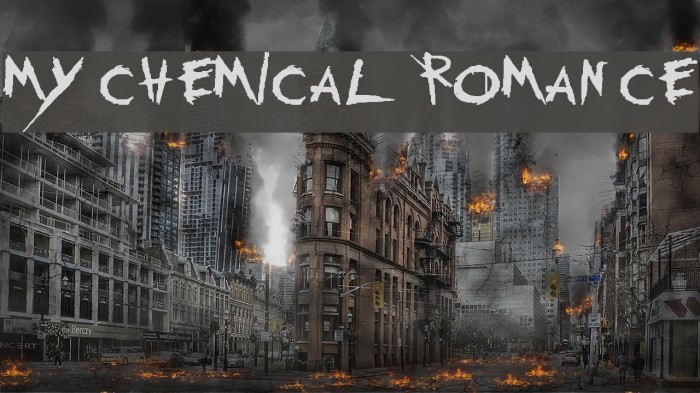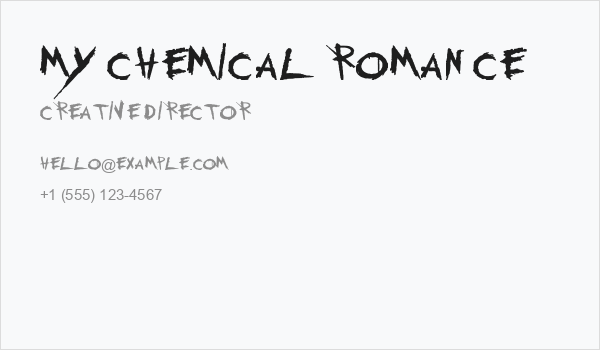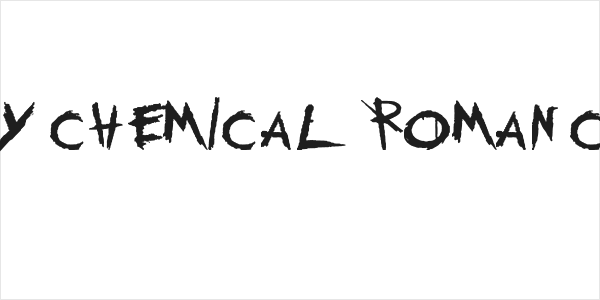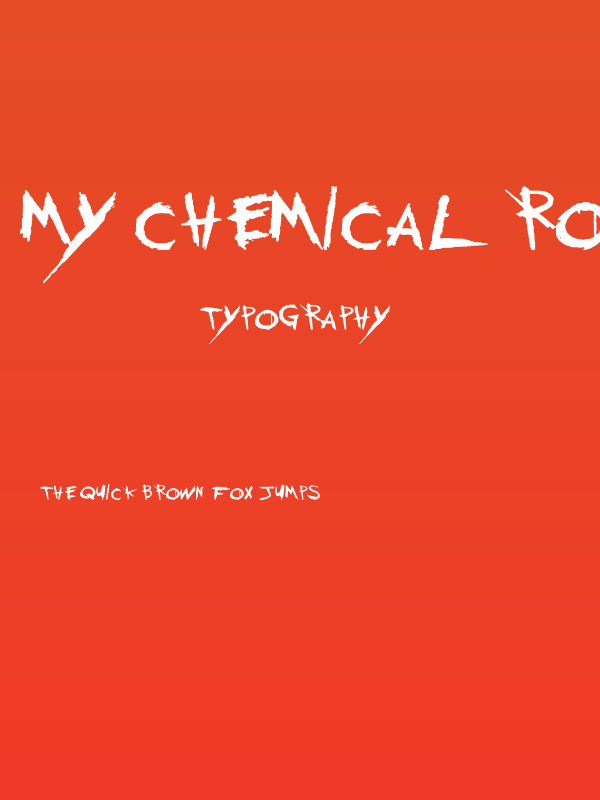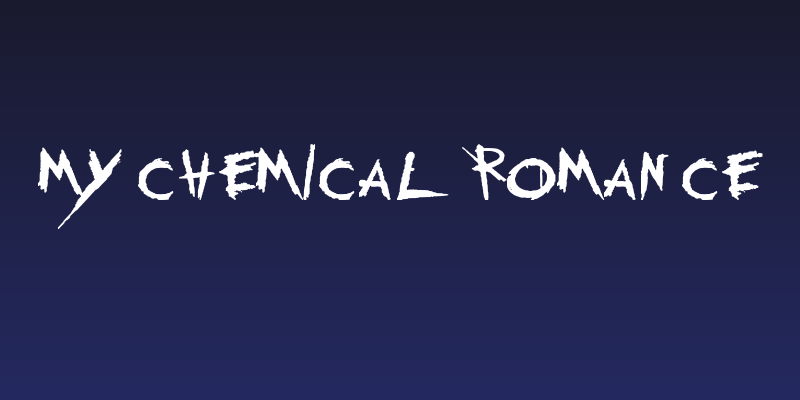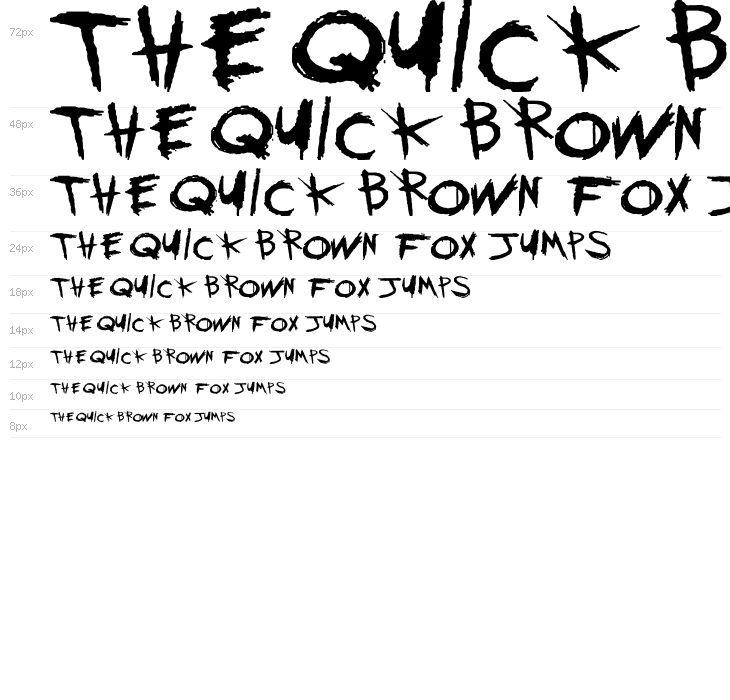
My Chemical Romance Font
My Chemical Romance Description
This font exhibits a grungy, distressed style with uneven strokes and a hand-drawn appearance. The characters are bold and expressive, with irregular edges that give them a raw, edgy feel. The uppercase and lowercase letters maintain a consistent style, with a slight slant and varying thickness in the strokes. The numerals are clear and legible, matching the overall aesthetic. Special characters are included, adding versatility for creative projects. This font is ideal for designs that require a rebellious or alternative vibe, such as music posters, album covers, or edgy branding.
| Overall Style | Grunge, Edgy |
| Proposed Projects | Ideal for music posters, album covers, edgy branding, and alternative-themed designs. |